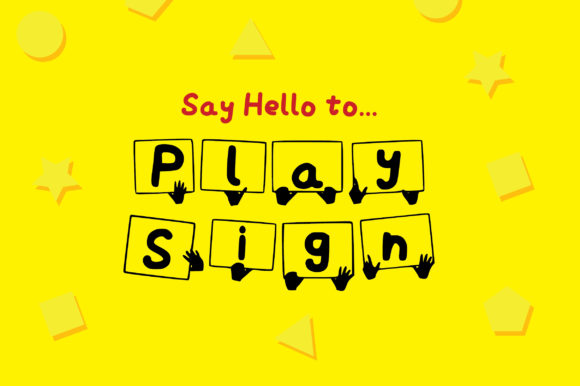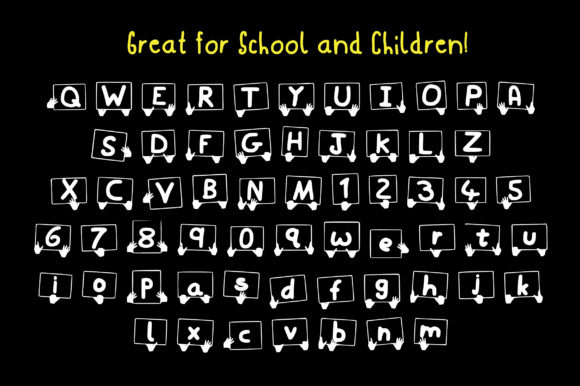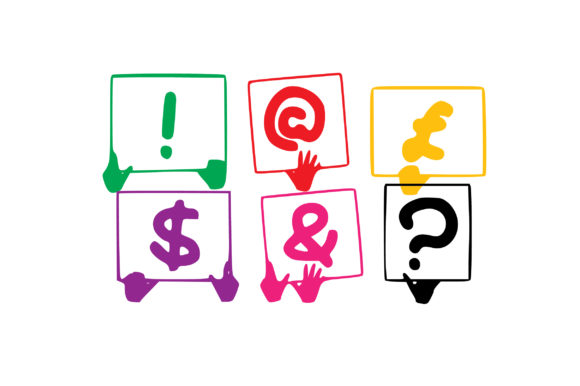
Play Sign Font
About the Play Sign Font
Experience the unique personality of Play Sign Font, a font designed for impact. Play Sign is a fun and cute decorative font, full of joy! Fall in love with its unique vibe.
Play Sign’s playful energy makes it ideal for headlines, short-form text in children’s books, playful branding for toys or confectionery, and eye-catching packaging designs. It would also work well on posters for events targeting a young audience. However, its decorative nature makes it unsuitable for body text, long paragraphs, or user interfaces where readability is paramount.
Its fun, slightly quirky personality is best complemented by pairings with clean sans-serif fonts like Open Sans or Lato for contrast. For a more sophisticated feel, consider pairing it with a classic serif like Garamond or a more modern geometric sans-serif such as Futura. Avoid pairing it with other highly decorative fonts to prevent visual clutter.
Play Sign’s overall personality is best described as cheerful and whimsical, making it a strong choice for projects needing a lighthearted and memorable touch.
Play Sign Font Usage Examples
Play Sign Font Example